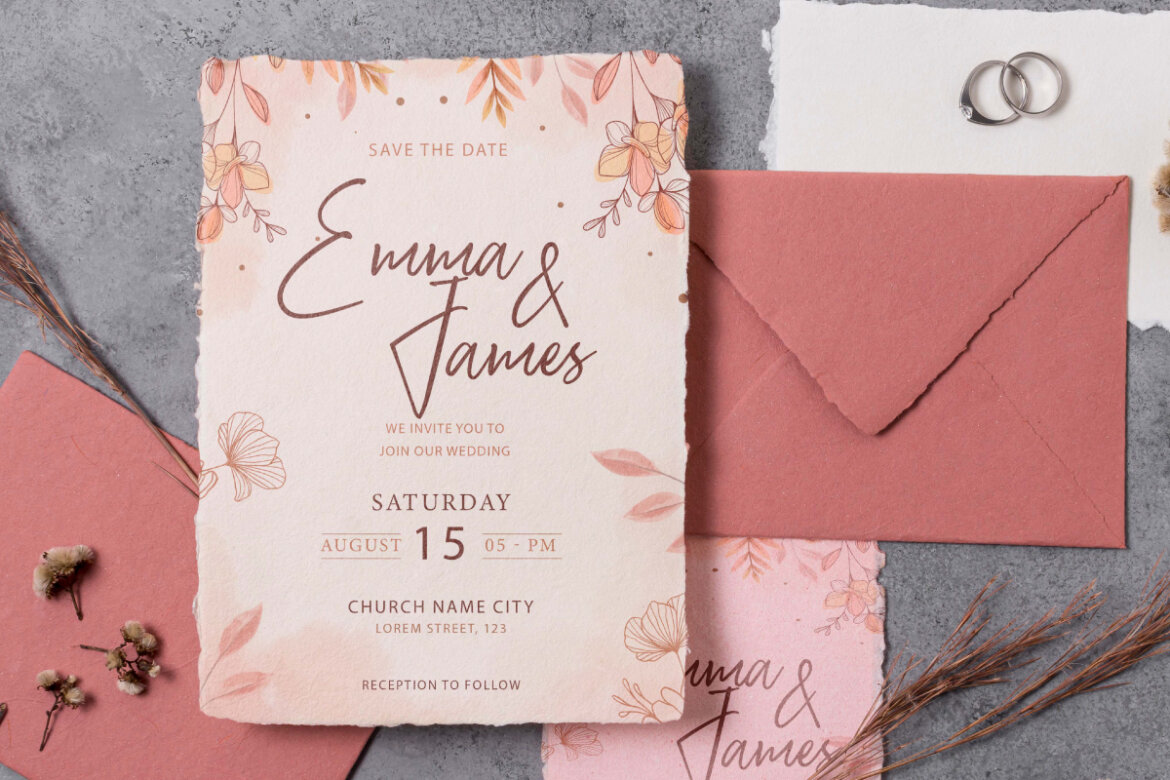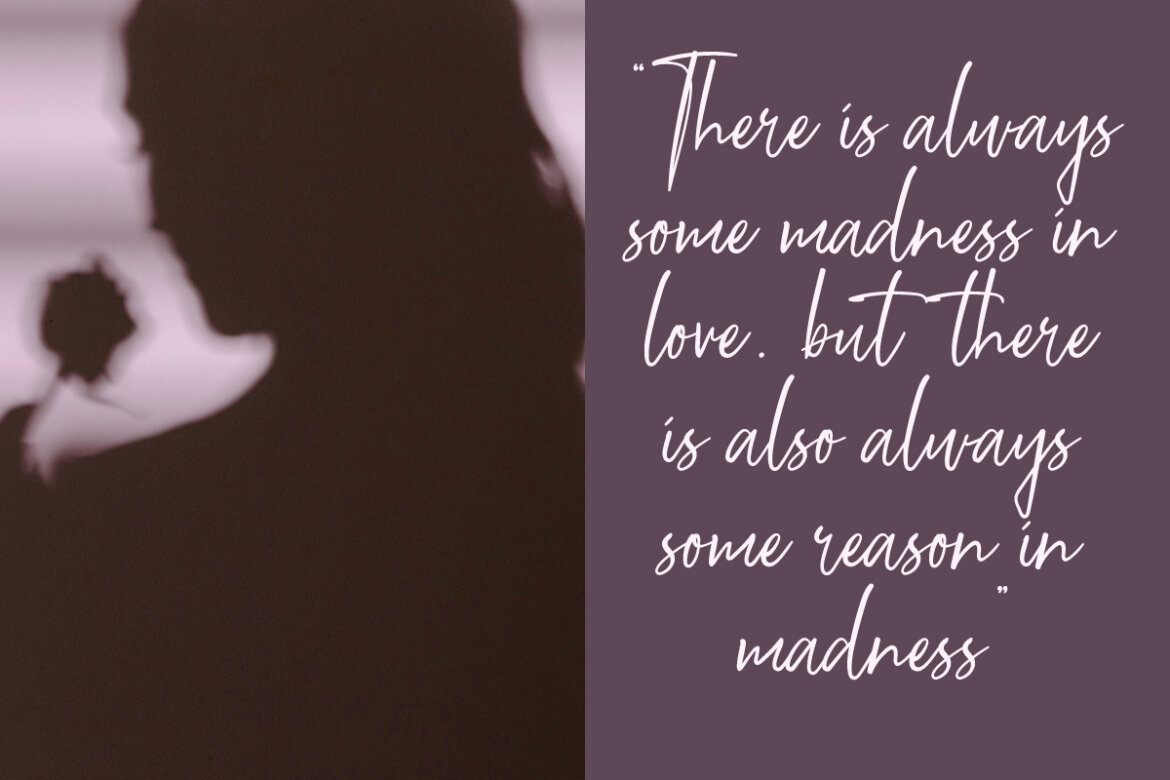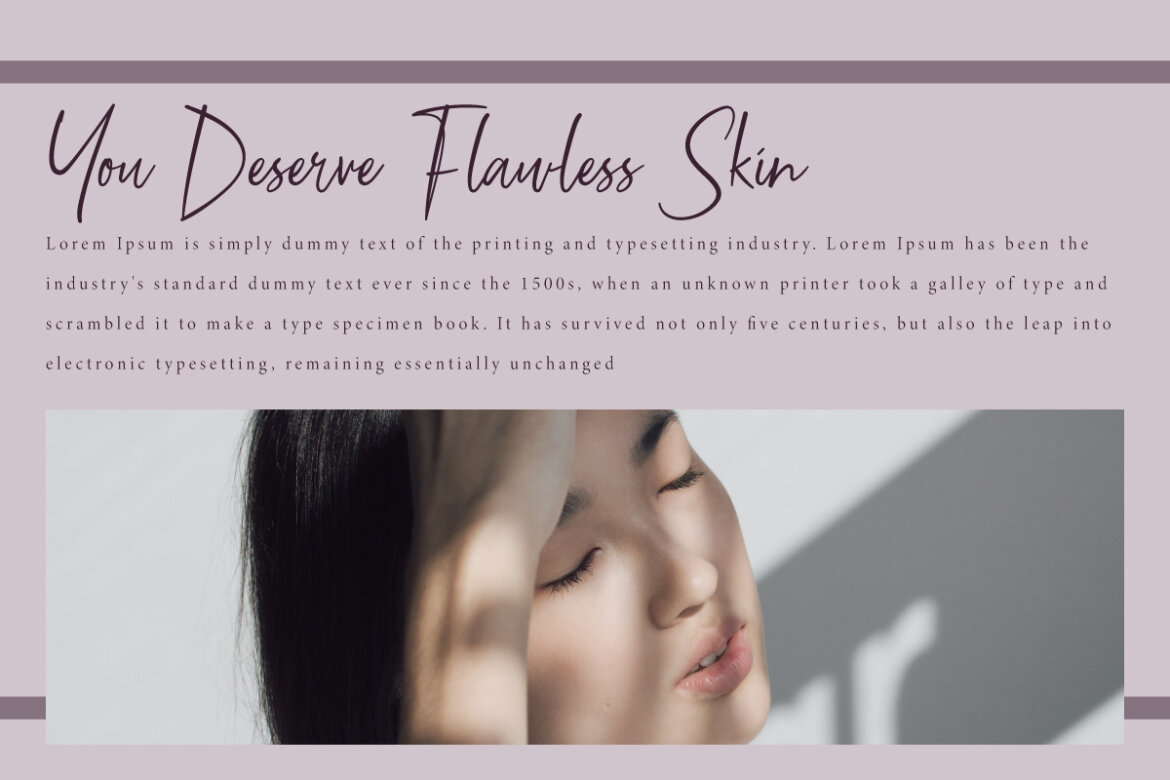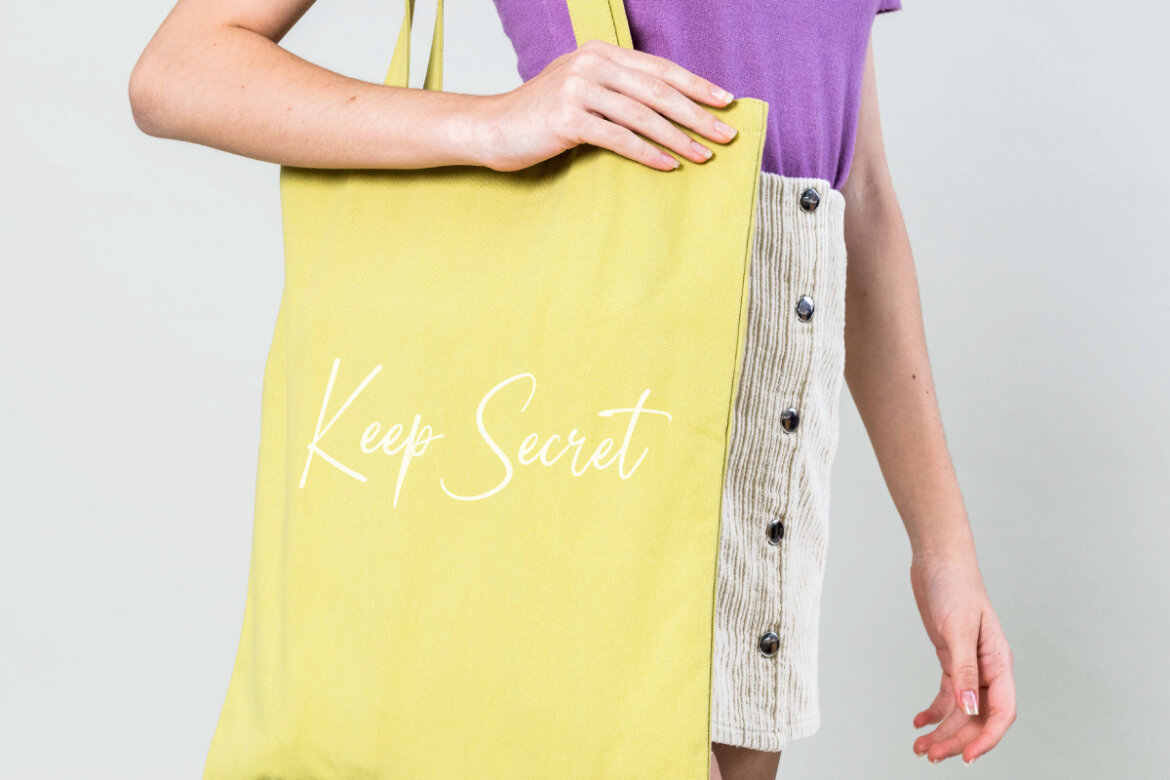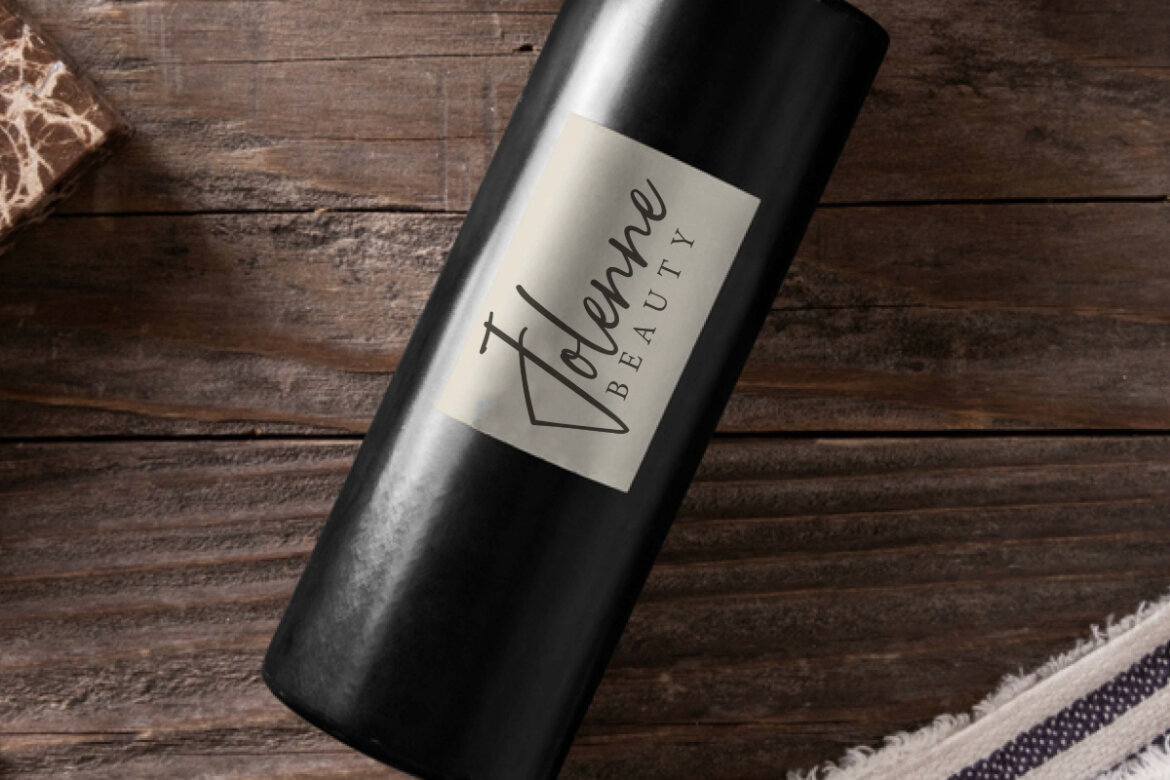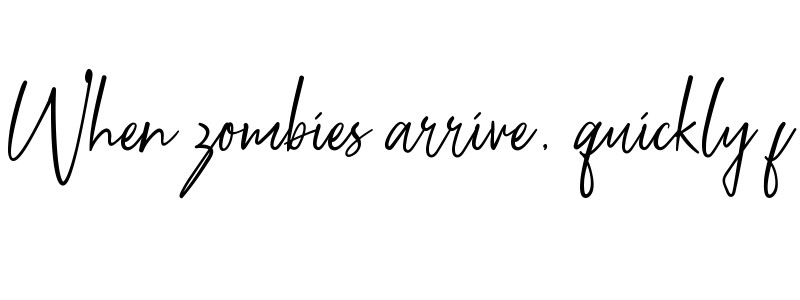
Keep Secret FREE Font
Keep Secret preview
Keep Secret
Keep Secret Font is a fabulous handwritten font created with love. A casual look that flows naturally and is easy to read will be versatile in any context. Well suited to ads, album covers, branding logo, cards, flyers, invitations, label, menus, packaging, print on fabrics, quotes, signage, social media, sticker, titles, watermarks, web, and more.
Keep Secret Font gives your designs an authentic handcrafted feel. The concentration of brush strokes that form the letters is sleek and attractive so it will look extraordinary and suitable for apparel, beauty skin clinic, cosmetic, fashion, florist, graphic design, makeup artist, merchandise, perfume maker, photography, skincare, spa salon, wedding organizer, etc.